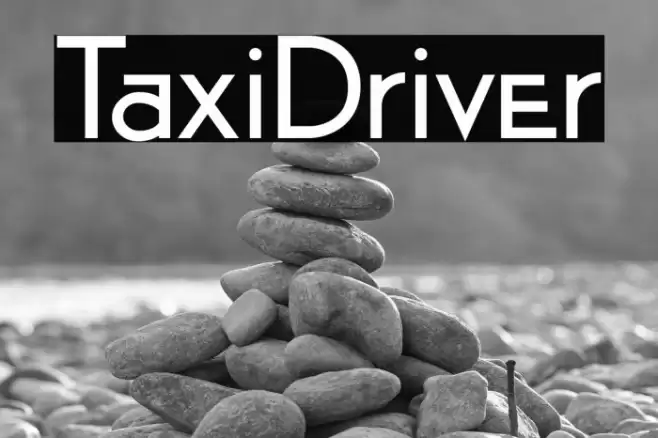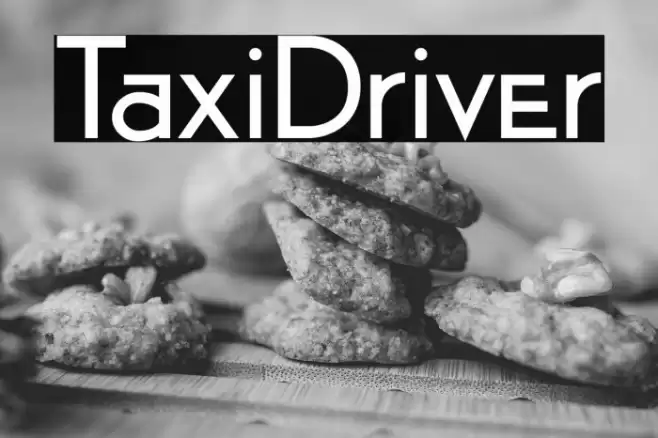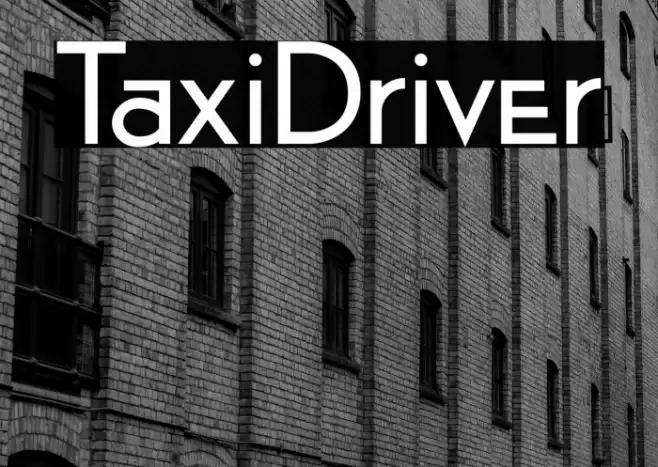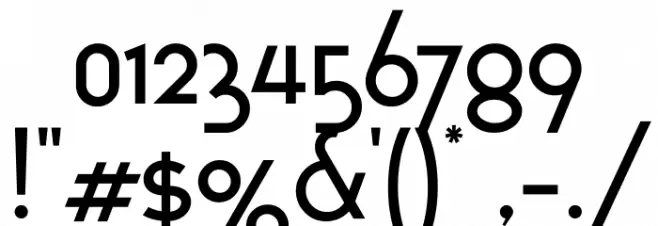
TaxiDriver Font
TaxiDriver Description
This font features a clean and modern sans-serif design with geometric influences. The characters are well-balanced with a consistent stroke width, giving it a sleek and professional appearance. The uppercase letters are bold and striking, while the lowercase letters maintain a harmonious flow. The numerals are clear and legible, making them suitable for various applications. Special characters are included, and they complement the overall style seamlessly. The font's simplicity and clarity make it versatile for both digital and print media.
A modern, geometric sans-serif font with clean lines and balanced proportions from Regular fonts.
- Proposed Projects: Ideal for branding, advertising, web design, and editorial layouts.